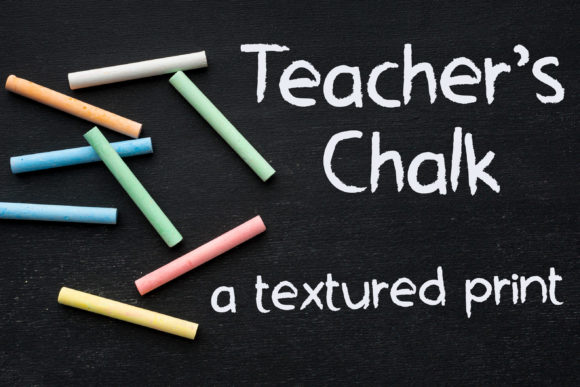
Introducing Teacher Chalk Font, a charming handwritten font with a youthful, child-like print and a hint of chalk-like texture. This font from the renowned Illustration Ink is perfect for capturing the essence of childhood, innocence, and the joy of learning.
With its playful and charming script style, Teacher Chalk Font is an ideal choice for educators, teachers, students, and anyone who wants to add a touch of whimsy and fun to their projects. Whether you're creating lesson plans, classroom posters, worksheets, or personalized notes to students, this font will bring a smile to the faces of learners of all ages.
Created with precision and attention to detail, Teacher Chalk Font features lowercase and uppercase letters, numbers, punctuation marks, and a selection of adorable icons that will elevate your creations. Its unique chalk-like texture adds an authentic touch, making it perfect for projects with a vintage or rustic aesthetic.
Unleash your creativity and bring your educational materials to life with Teacher Chalk Font. From vibrant classroom displays to engaging worksheets and presentations, this font will captivate and inspire students while making learning fun and interactive.
Whether you're a teacher looking to create engaging lesson plans, a parent designing personalized learning resources, or a student adding a playful touch to your projects, Teacher Chalk Font is your perfect companion. Let your imagination soar and turn ordinary educational materials into extraordinary experiences.
With its charming style and versatility, Teacher Chalk Font is a must-have for anyone looking to create educational resources that are both informative and visually appealing. Download it today and embark on a creative journey that will ignite the passion for learning in every child.